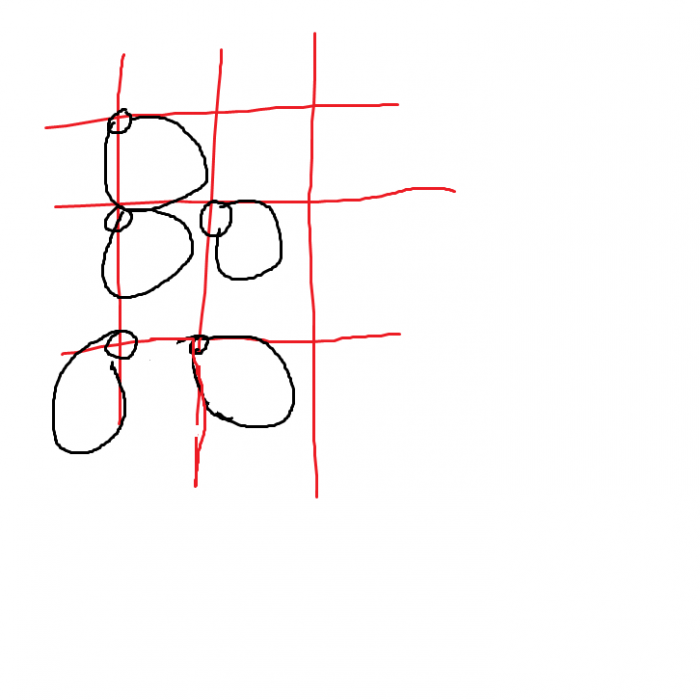
excuse me but some of the dots are facing the opposite way to all the rest...
yeah the nudged ones...
i think he did it so that all the holes were to be in a normal grid
something like that